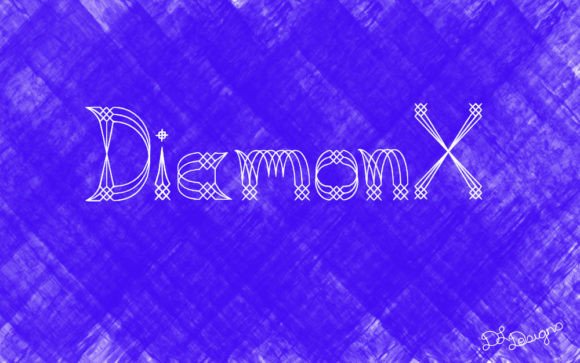
Behold, the DiamonX font, a display font that's not just a font, but a gateway to a world of visual captivation. An avant-garde creation from the talented amanndldesigns, DiamonX is designed to make your words dance off the screen with elegance and allure.
This font is not just a collection of letters; it's an expression of individuality, a paintbrush to paint your digital canvas with panache. Let your imagination soar as you craft logos that demand attention, headlines that command respect, and social media posts that ignite engagement.
With DiamonX, the ordinary becomes extraordinary. Its captivating curves and sharp edges interplay seamlessly, creating a visual symphony that will elevate your designs to new heights. Imagine your website looking like a masterpiece, your presentations turning heads, and your marketing materials becoming irresistible.
In a world saturated with monotony, DiamonX is your chance to stand out, to be remembered, to leave a lasting impression. Whether you're a seasoned designer or just starting out, this font will empower you to unleash your creativity and turn your digital dreams into reality.
So, seize this opportunity to add DiamonX to your typographic arsenal and unlock a world of visual enchantment. Let your designs sparkle with brilliance, let your words radiate with sophistication, and let your creations captivate audiences with every stroke. The DiamonX font awaits, ready to transform your digital presence into a captivating spectacle.